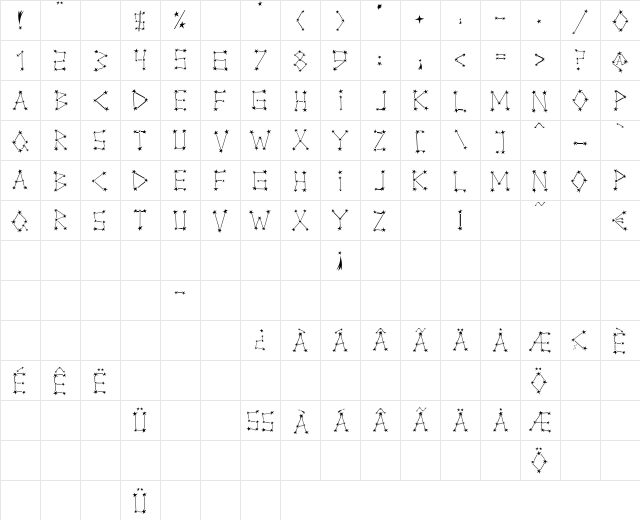
Milky Way Stars Regular Free Font
Milky Way Stars Regular
Design Context for Milky Way Stars
Milky Way Stars is a composed and adaptable typeface that performs quietly and consistently across a wide range of design contexts.